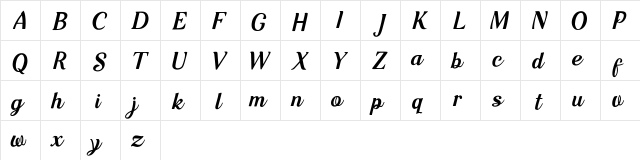
Kashie Mercy Kashie Mercy
Design Context for Kashie Mercy Typeface
Kashie Mercy is a composed and adaptable typeface that performs quietly and consistently across a wide range of design contexts.
Pro Tip: Use Kashie Mercy in both headline and body roles to test its range before committing to a single application.